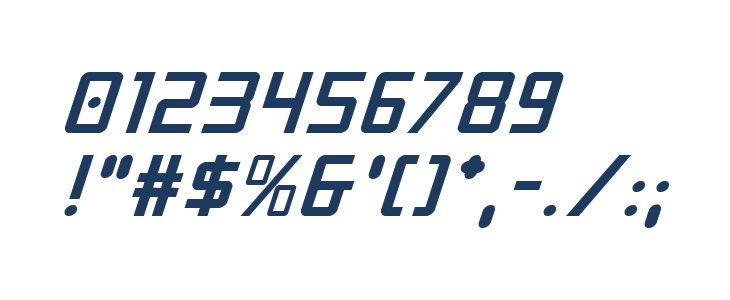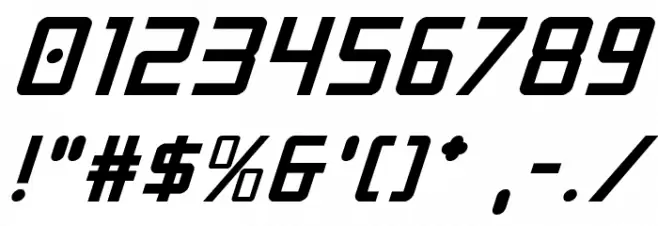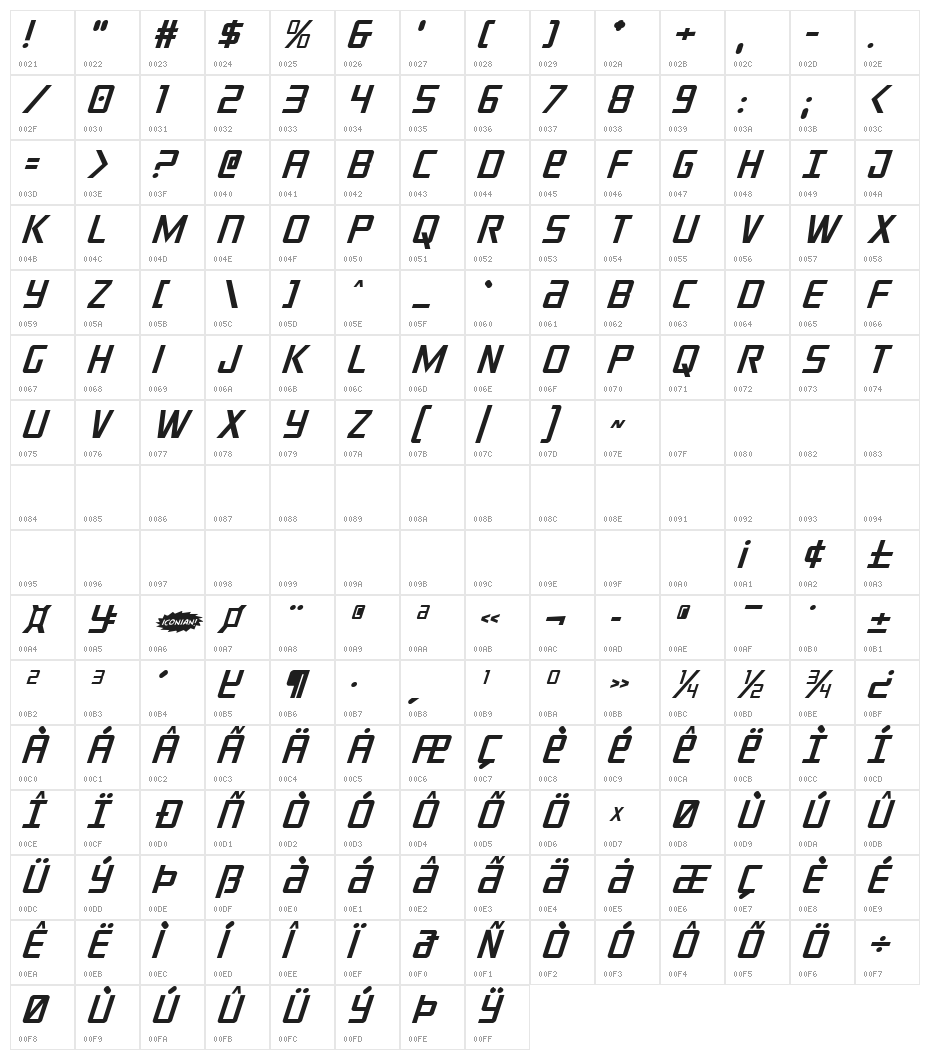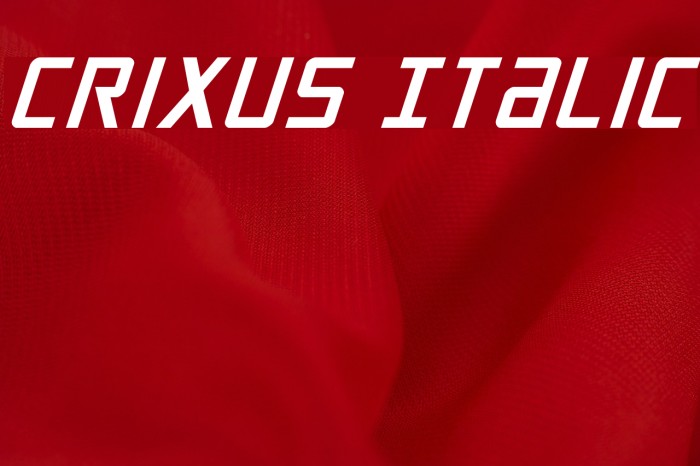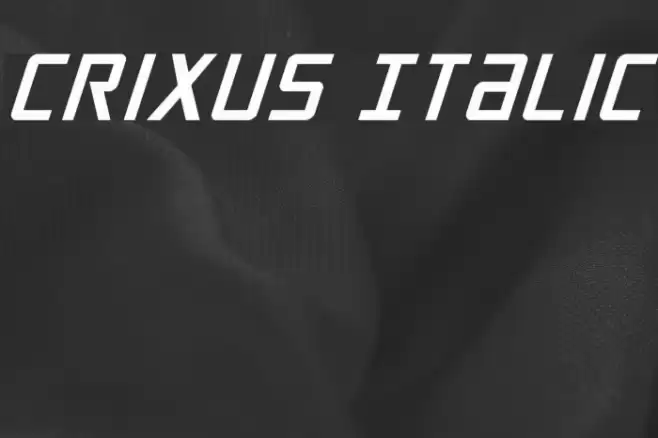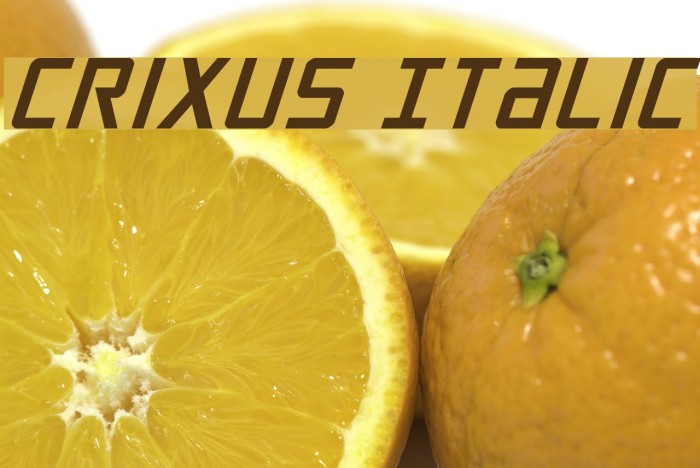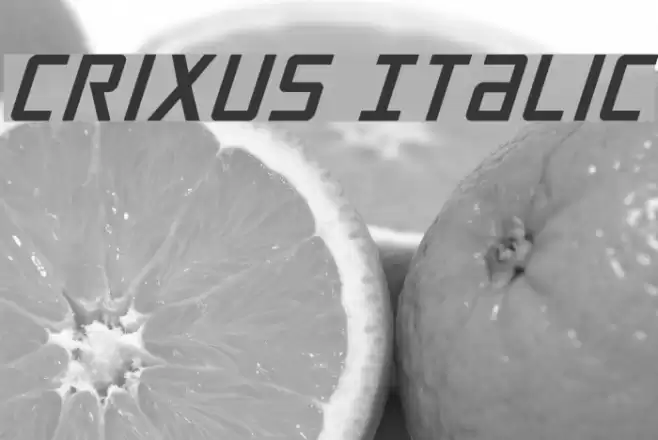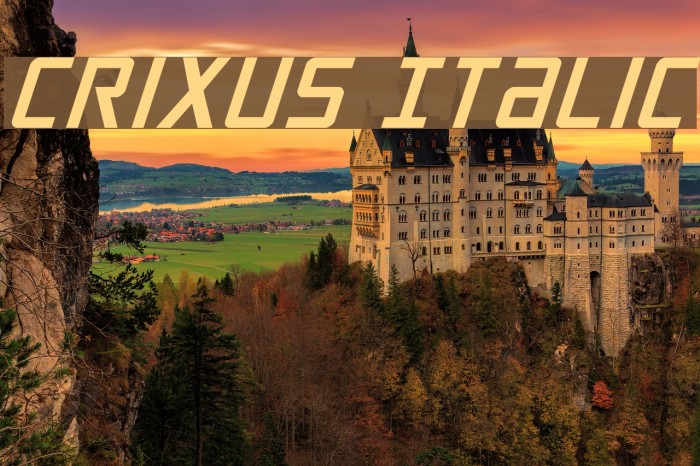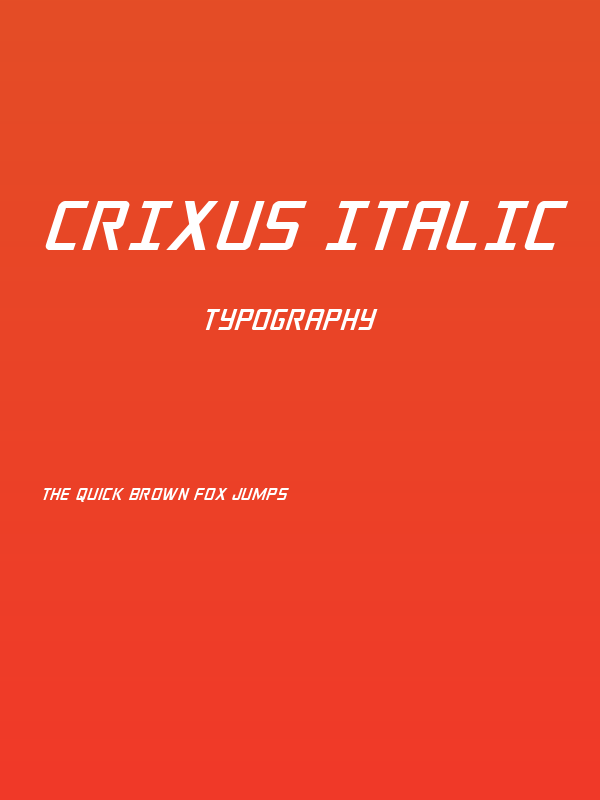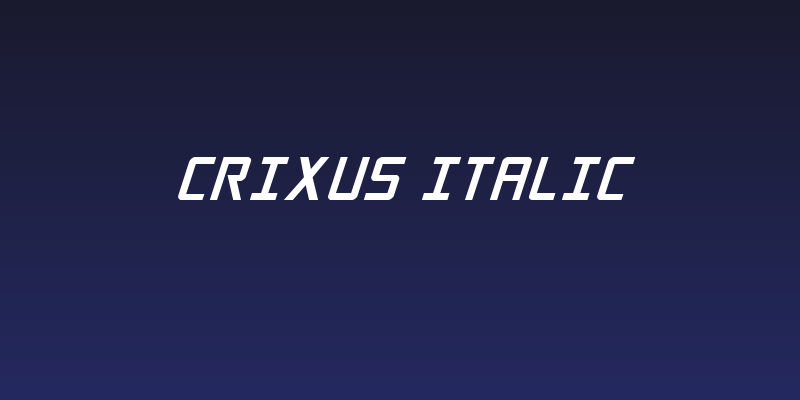
Crixus Italic Font
Crixus Italic Description
This font features a modern, italicized design with a sleek and angular appearance. The characters are slightly condensed, giving it a compact and efficient look. The strokes are consistent in weight, providing a uniform and balanced feel across all letters and numbers. The font includes a full set of uppercase and lowercase letters, numerals, and a variety of special characters, making it versatile for different uses. Its italic style adds a dynamic and forward-moving energy, suitable for contemporary and edgy designs.
| Proposed Projects | Ideal for branding, sports team logos, dynamic posters, and modern website headers. |